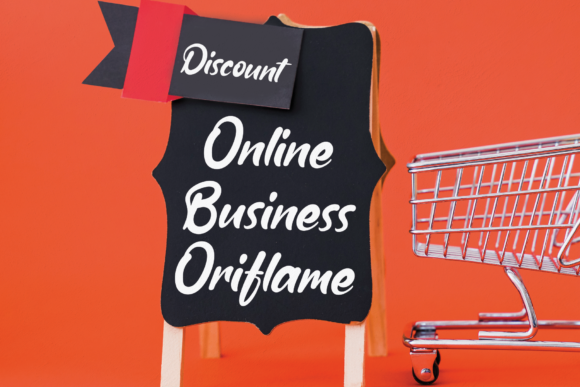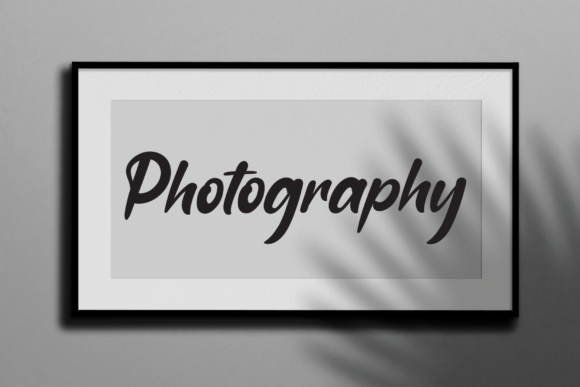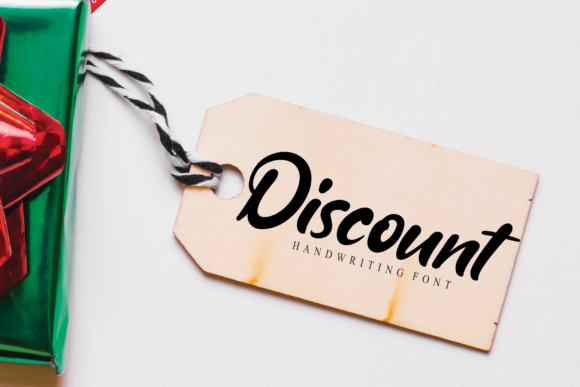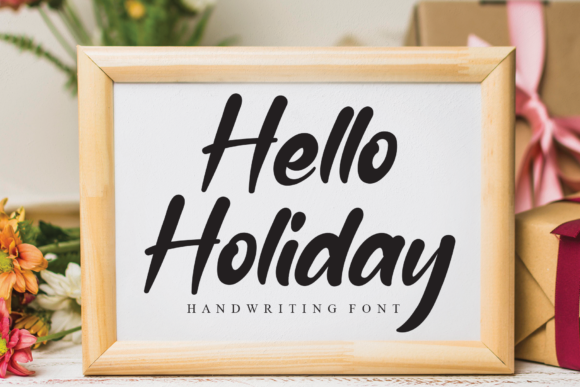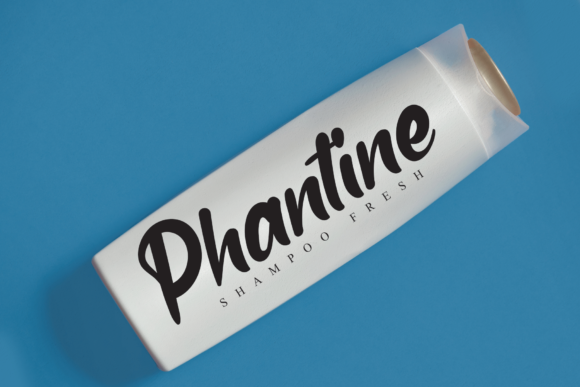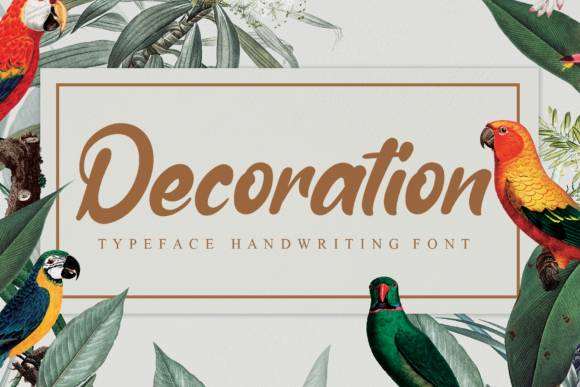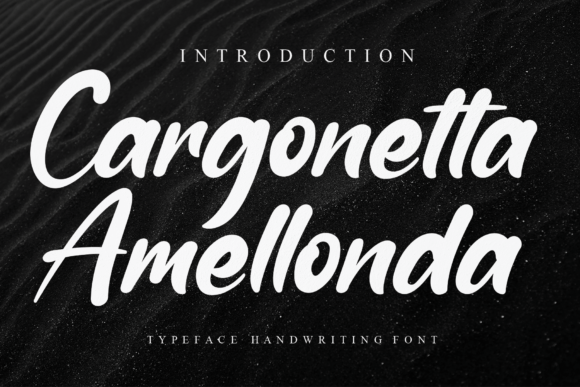
Adding a Touch of Elegance to Your Designs
There’s nothing quite like the feeling of landing on a design concept that just clicks. The words flow effortlessly, the colors pop, and the typography is spot on. It’s a moment of pure creative bliss. But what makes that perfect design? Is it the bold colors, the intricate patterns, or perhaps the font itself? For many designers, the right font can make all the difference.
Enter the Cargonetta Amellonda Font, a stunning handwritten font that adds a touch of elegance and sophistication to any design project. Crafted to give headlines and logotype projects a stylish edge, this font is perfect for designers looking to add a dash of personality to their work. With its strong, confident, and dynamic feel, the Cargonetta Amellonda Font is a valuable asset for any designer looking to elevate their designs.
Cargonetta Amellonda Font Key Features
- Font Family: Cargonetta Amellonda
- Unique Characteristics: Features a unique, handwritten style with subtle flair and personality, making it suitable for creative and expressive designs
Cargonetta Amellonda Font Review
Initially, I was drawn to Cargonetta Amellonda Font’s elegant and playful vibe ✨. The font’s unique blend of script and sans-serif elements makes it perfect for adding a touch of sophistication to various designs, from wedding invitations to fashion labels.
One of the standout features of Cargonetta Amellonda Font is its high-quality rendering ✨. Whether used for digital or print applications, the font remains crisp and clear, ensuring that your design looks its best. Additionally, the font’s wide range of language support makes it an excellent choice for multilingual projects.
While Cargonetta Amellonda Font excels in many areas, there are a few limitations to be aware of ⚠️. The font’s script elements can be quite ornate, which may make it difficult to read in certain contexts. Furthermore, the font’s weight range is relatively limited, which may not be suitable for designs requiring a wide range of styles.
- Limited weight range
- Ornate script elements may be difficult to read in certain contexts
Overall, Cargonetta Amellonda Font is a beautiful and versatile font that can elevate any design project ✨. While it may have some limitations, its unique style and high-quality rendering make it a valuable addition to any designer’s toolkit.
Cargonetta Amellonda Font is suitable for:
- Branding